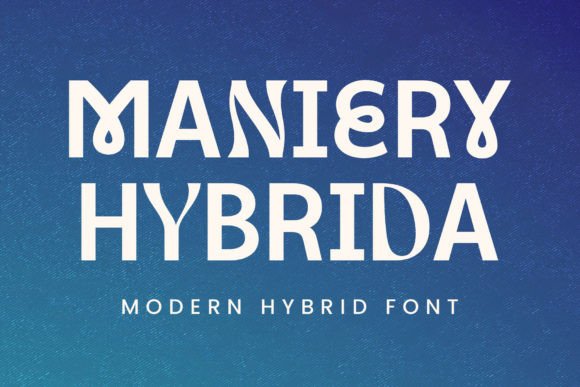
In a world of ordinary fonts, Maniery Hybrida emerges as a captivating fusion of styles, a hybrid masterpiece that redefines the boundaries of creativity. This extraordinary display font seamlessly blends the elegance of a loopy script with the clean lines of sans serif and the unexpected charm of a serif, resulting in a visual symphony that captivates the senses.
Maniery Hybrida is not just a font; it's an expression of individuality, a testament to your impeccable taste and discerning eye for design. With its unique and eye-catching charm, this font is the perfect choice for those who dare to stand out, to make a statement, and to leave an indelible mark on the world.
Whether you're a seasoned designer seeking a fresh and innovative font or a creative enthusiast looking to elevate your projects, Maniery Hybrida is your muse, your artistic companion. Unleash your imagination and let the boundless possibilities of this font ignite your creative spark.